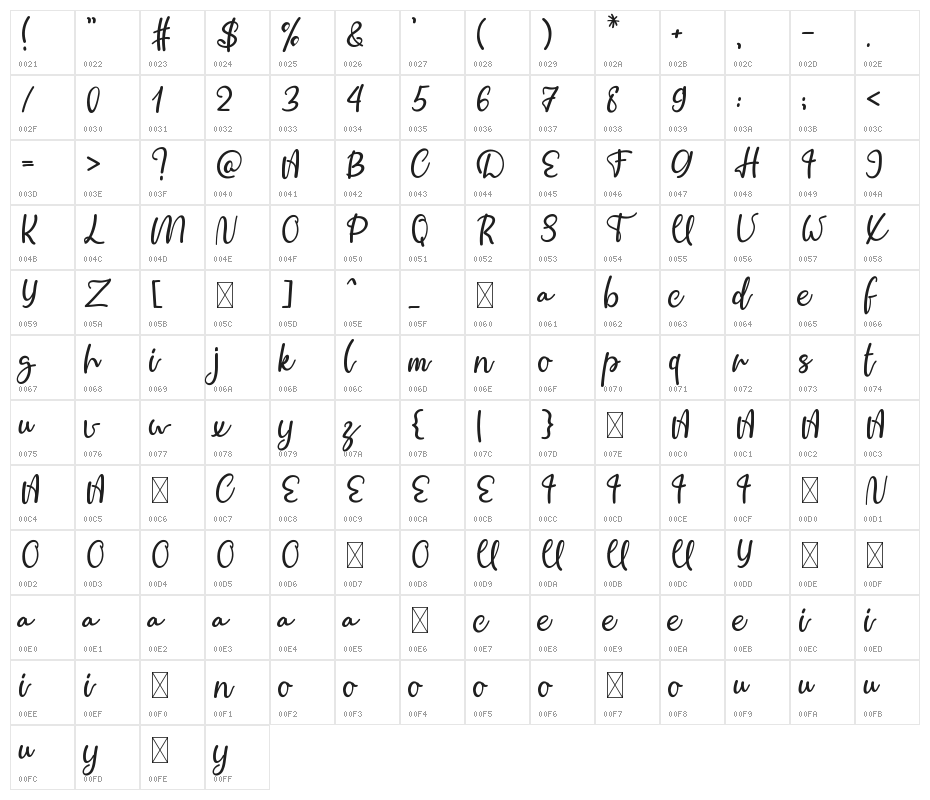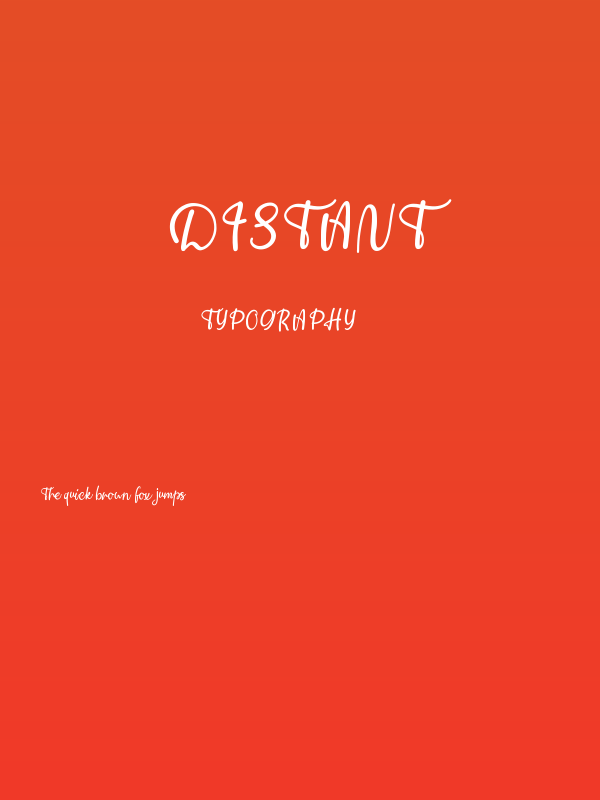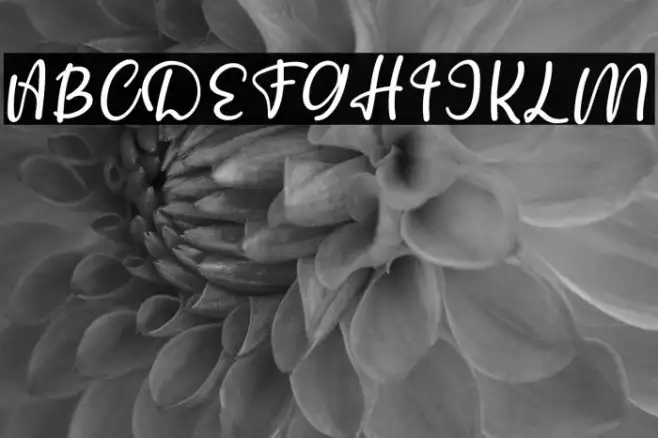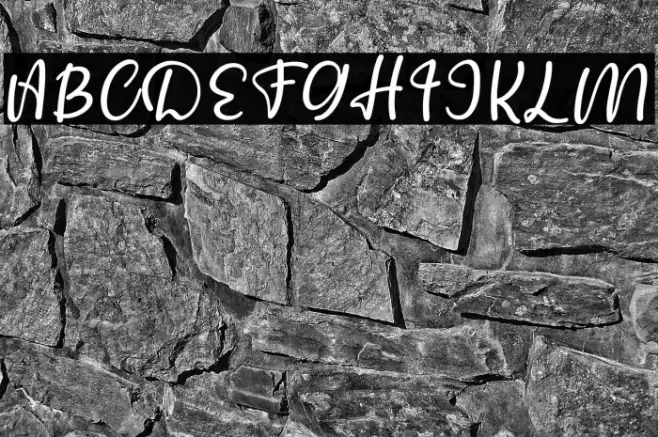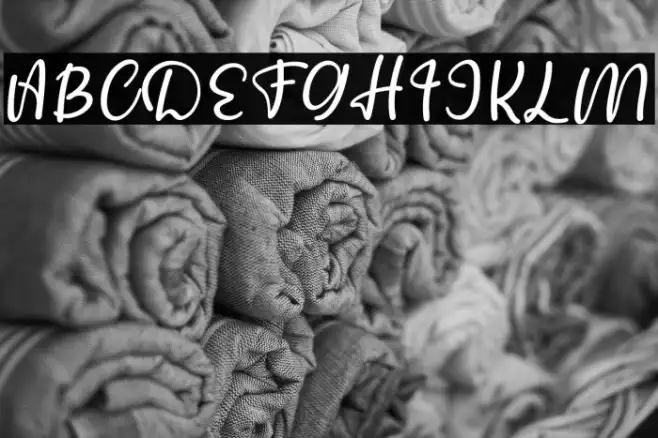
Distant Font
Distant Description
This font features a lively and expressive handwritten style, characterized by its fluid and continuous strokes. The uppercase letters exhibit a playful yet elegant form, while the lowercase letters maintain a consistent flow, enhancing readability. Numbers and special characters are crafted with the same dynamic energy, making them stand out. The overall appearance is casual yet sophisticated, suitable for projects that require a personal touch. Its unique style captures attention without compromising on clarity, making it versatile for various design needs.
| Overall Style | Casual, Artistic |
| Proposed Projects | Ideal for greeting cards, invitations, personal branding, and creative projects that require a personal and artistic touch. |